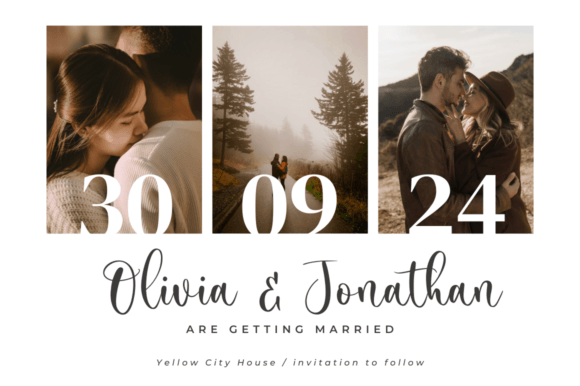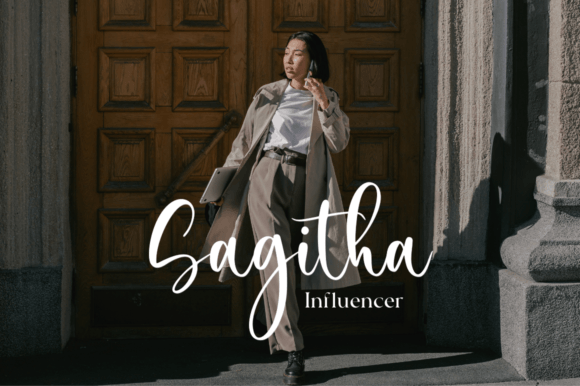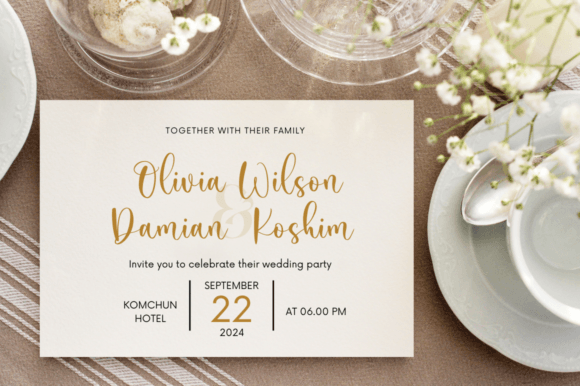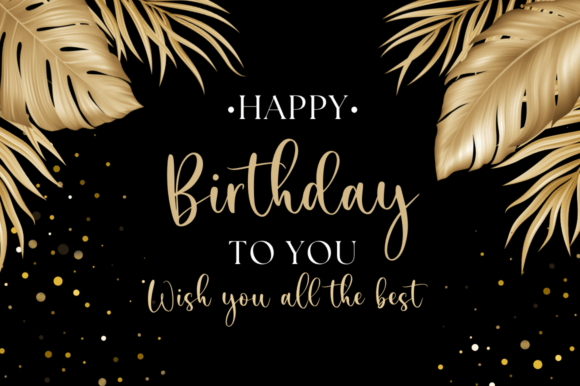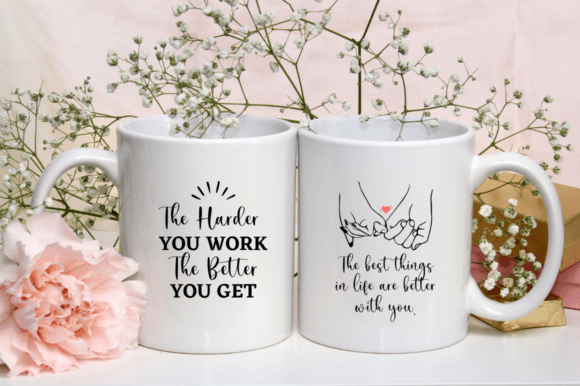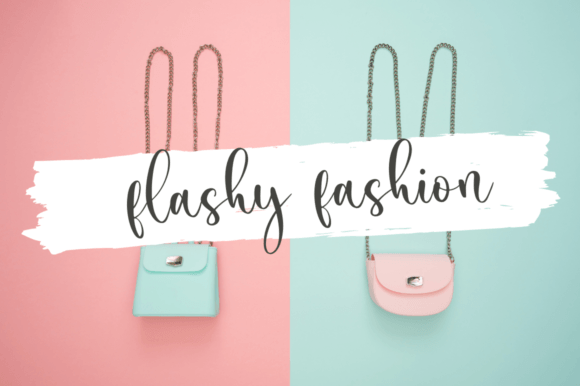
Introduction to Malgitha Font Font
Fonts play a crucial role in design, and the Malgitha Font font is a typeface that brings both character and versatility to any project. Whether you’re working on a branding project, a website, or a print design, the Malgitha Font font offers a unique style that can elevate your work.
Introducing βMalgitha,β a font that embodies the essence of beautiful calligraphy with its exquisite strokes and graceful curves.
With meticulous attention to detail, this font exudes elegance and sophistication Perfect for projects that seek to convey a sense of refinement and beauty, such as wedding invitations, branding, or elegant packaging.
Key Features of Malgitha Font Font
Why Choose Malgitha Font Font?
The Malgitha Font font is more than just a typeface β it’s a design tool that helps you communicate your message with style and clarity. Its unique character set and versatile design make it suitable for a wide range of applications, from elegant invitations to bold headlines.
With its carefully crafted letterforms and balanced proportions, the Malgitha Font font ensures readability and visual appeal across all mediums.
What makes Malgitha Font font special?
The Malgitha Font font stands out with its unique design, exceptional readability, and versatility across various design applications.